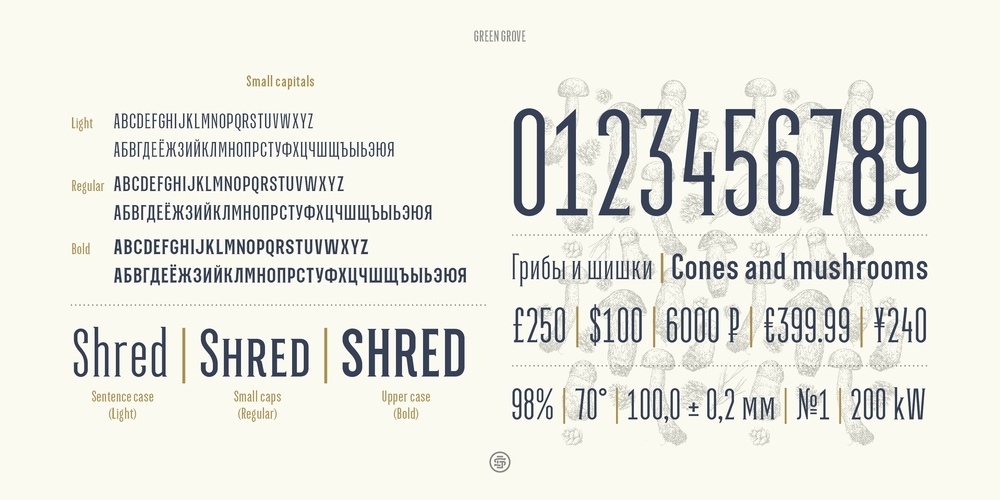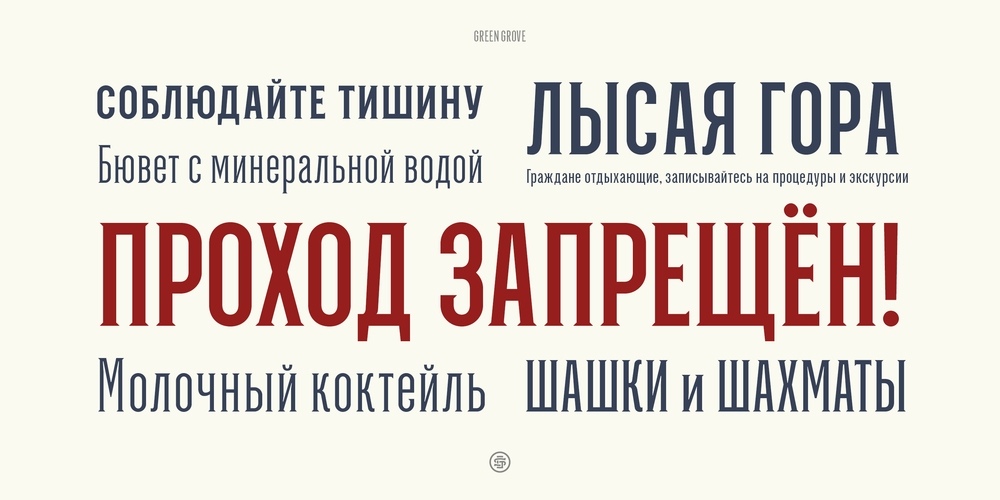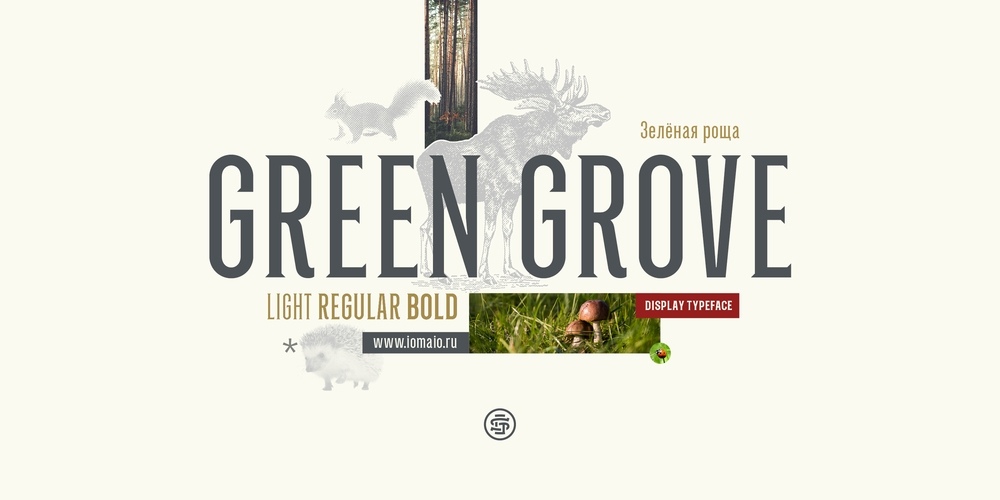
Green Grove Font
Green Grove Font is perfect for eco-friendly branding, organic product packaging, sustainable business communications, natural wellness brands, environmental organization signage, forest conservation materials, green technology marketing, outdoor recreation branding, botanical garden communications, and earth-conscious lifestyle messaging.
Green Grove Font is exciting because it captures the serene beauty and natural harmony of forest environments with its organically inspired letterforms that evoke the peaceful tranquility and sustainable vitality of pristine woodland landscapes. Its earth-friendly character design combines natural authenticity with contemporary environmental consciousness, making it perfect for brands that want to communicate sustainability, natural wellness, and the kind of environmental responsibility that resonates with eco-conscious consumers.
The Green Grove Font family includes Light, Regular, Medium, Bold weights, flowing Italic variations, Condensed styles, Organic alternates, Natural flourishes, Eco ornaments, and Forest elements, providing designers with comprehensive tools for creating authentically natural typography that celebrates environmental stewardship and sustainable living while maintaining professional appeal and market credibility.
Green Grove Font Free Download brings authentic environmental appeal to sustainable branding applications, featuring thoughtfully crafted letterforms that honor the beauty of natural ecosystems while serving contemporary green business market needs. This earth-conscious typeface combines environmental authenticity with professional functionality, creating the perfect solution for eco-friendly companies, sustainable brands, and environmental organizations that prioritize both natural beauty and responsible business practices.
Whether you're developing sustainable brand identities, designing organic product packaging, creating environmental campaign materials, or producing green technology communications, Green Grove Font provides the natural foundation needed for credible environmental positioning. Its organic character makes it particularly effective for organic food producers, renewable energy companies, environmental nonprofits, and sustainable lifestyle brands targeting environmentally conscious consumers who value authenticity and ecological responsibility.
Perfect for environmental marketers, sustainable brand designers, green technology developers, and creative professionals working with eco-conscious organizations, this font offers the natural qualities essential for successful environmental market positioning. The typeface's organic nature ensures consistent authenticity across both digital sustainability platforms and traditional environmental communication materials.
Green Grove Font includes comprehensive eco-focused character sets, nature-inspired design elements, and sustainably optimized spacing that guarantees superior performance in environmental design applications. Its natural approach to typography makes it indispensable for brands celebrating environmental stewardship and sustainable living. Grow sustainable brands with Green Grove Font Free Download and create typography that truly nurtures environmental consciousness.